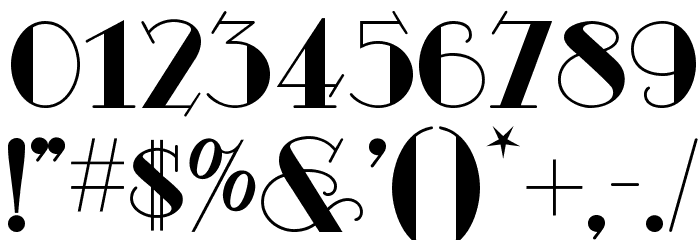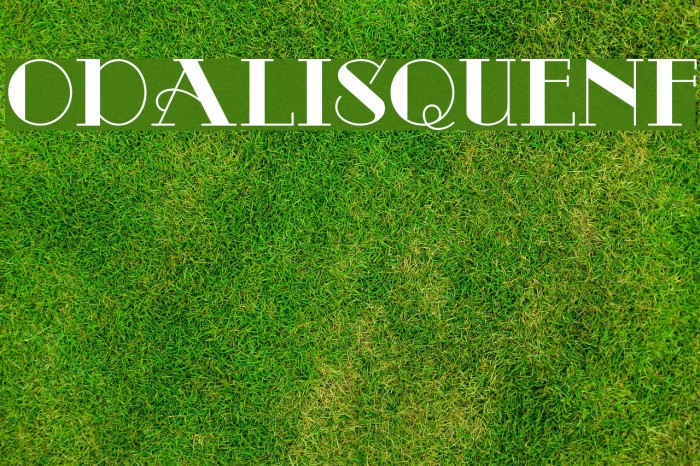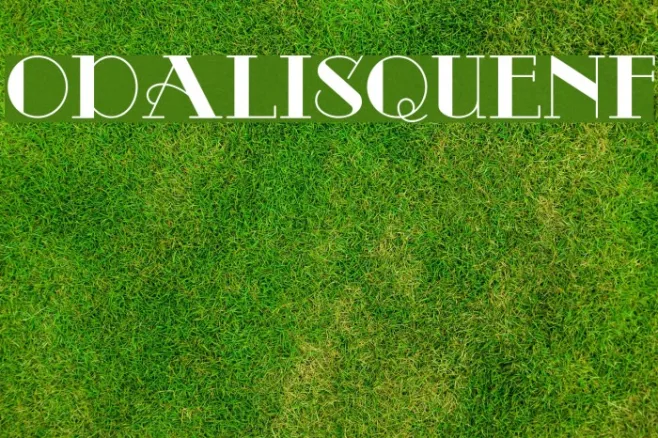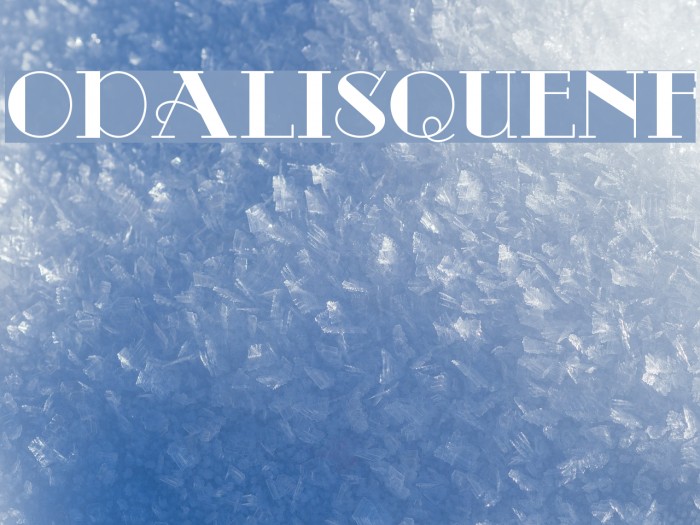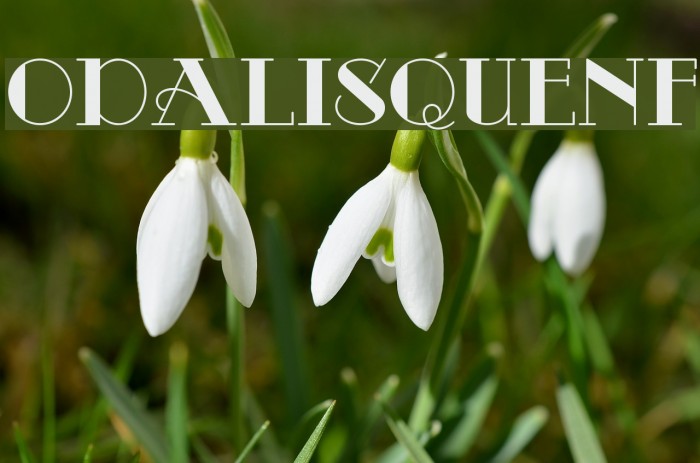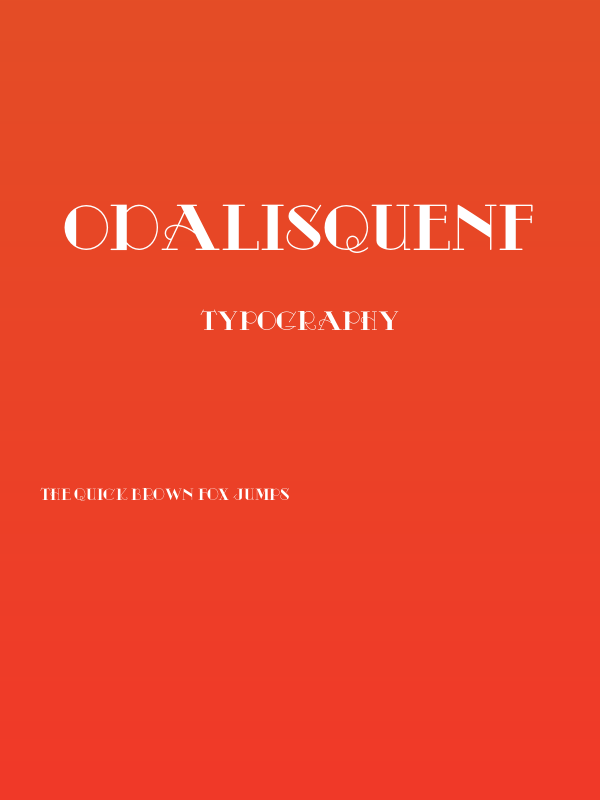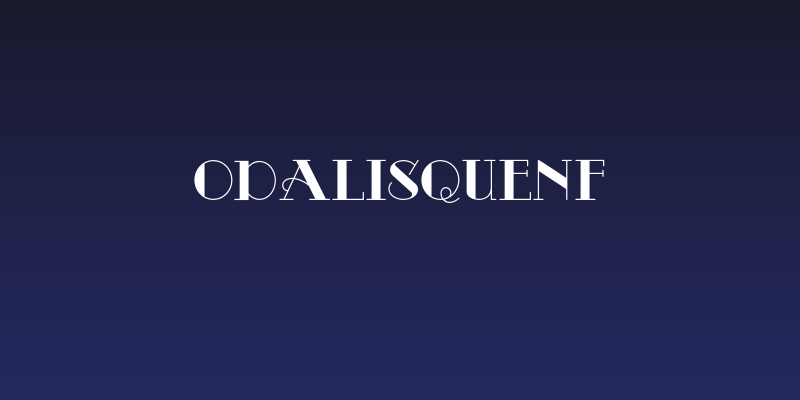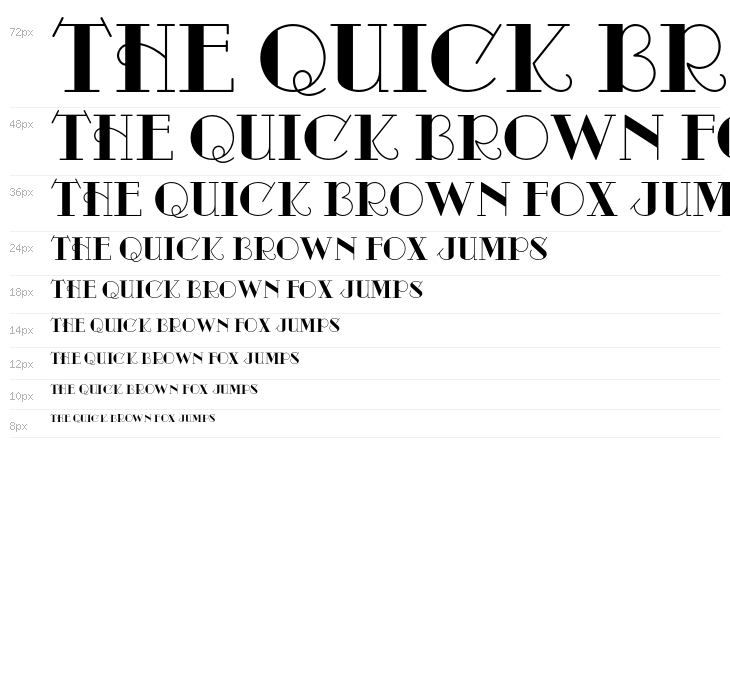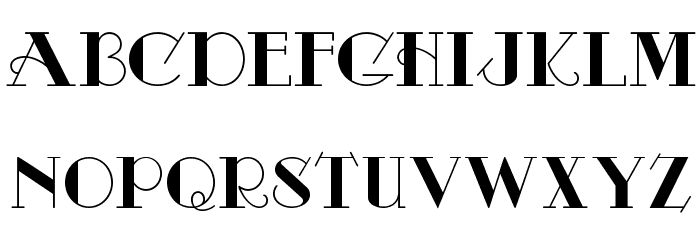
OdalisqueNF Font
OdalisqueNF Description
This font features a unique blend of classic elegance and modern flair, characterized by its high contrast between thick and thin strokes. The uppercase letters exhibit a sophisticated style with distinct serifs and decorative elements, while the lowercase letters maintain a consistent design with a touch of whimsy. The numerals are bold and striking, complementing the overall aesthetic. Special characters are creatively designed, adding to the font's versatility. This font is perfect for projects that require a touch of luxury and refinement.